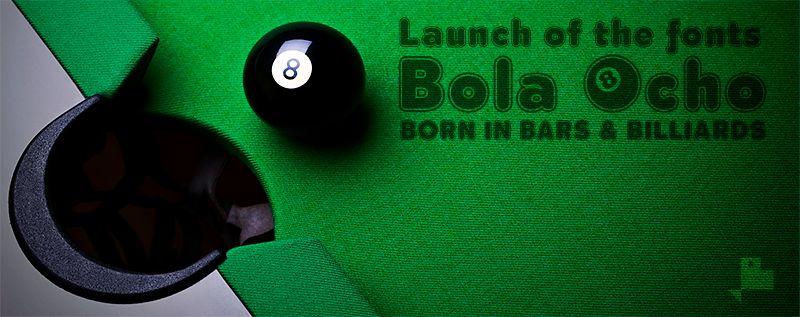
Sans serif typography very thick and rounded, university style. The font has several sets of numbers and monetary symbols. Including the Bitcoin symbol: b # ===================== Thanks for download FULL VERSIONS (regular & italic) & COMMERCIAL LICENSE: https://defharo.com/fonts/bola-ocho-college/ |